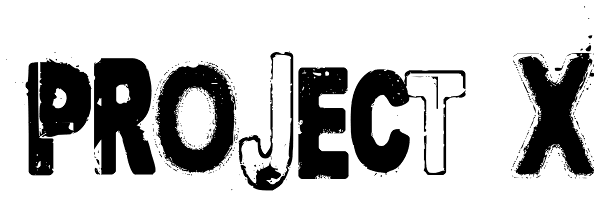
Project X
Project X is a wonderful grunge font. It was completely drawn by hand, using a fineliner, then filled in with ink. After the original sketch was finished, the font was given a complete overhaul in Photoshop, using several brushes and layers. Project...